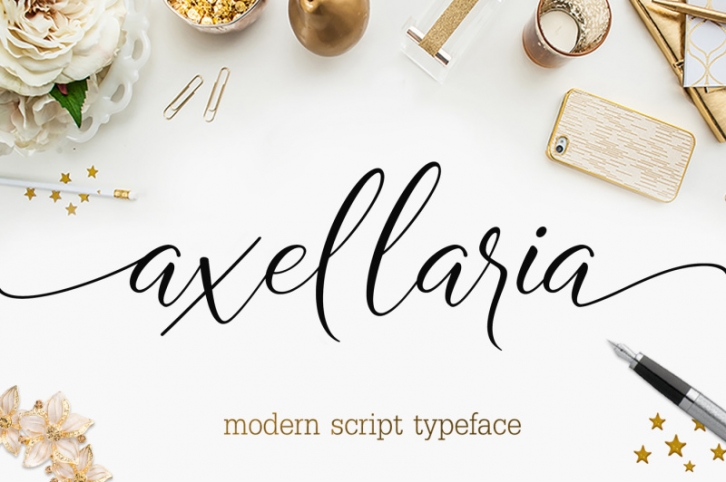
Axellaria- a new fresh & modern script with a sweet calligraphy-style, decorative characters and a dancing baseline! So beautiful on invitation like greeting cards, branding materials, business cards, quotes, posters, and more!
• Features Basic Latin A-Z and a-z Numbers Symbols.